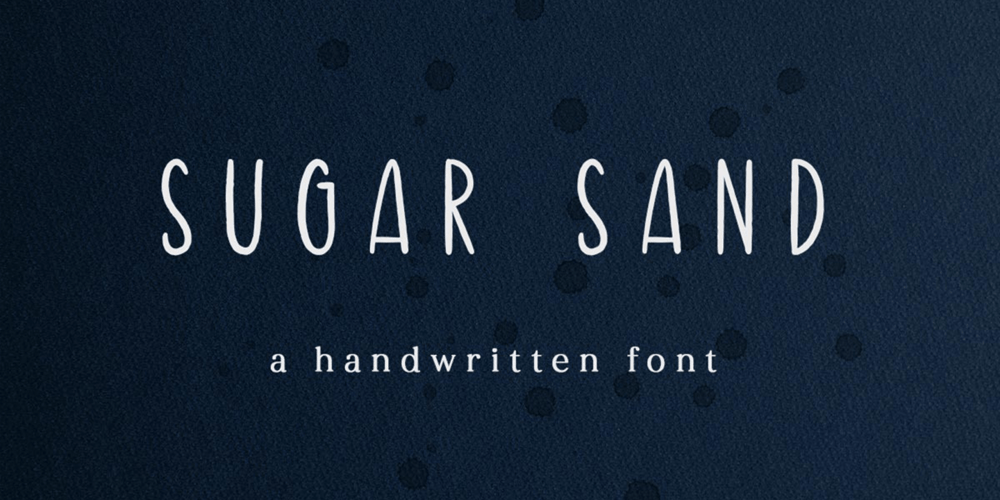
Sugar Sand Font Family was designed by Ira Natasha and published by Ira Natasha. Sugar Sand contains 1 styles and family package options. Sugar Sand is a handwritten sans serif font. A new fresh handmade font with rough edges. This font is support multi language. It will be perfect for many different project ex: quotes, logo, blog header, poster, branding, fashion, apparel, letter, invitation, stationery, etc….